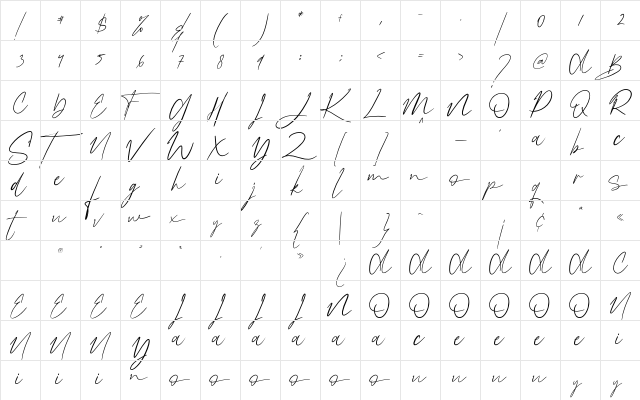
Bellanesia-Demo Regular
| Designer | Motion Tail Studio |
Design Context for Bellanesia-Demo Typeface
Bellanesia-Demo is a composed and adaptable typeface that performs quietly and consistently across a wide range of design contexts.